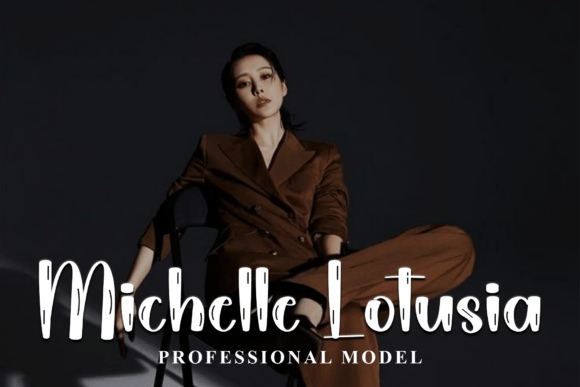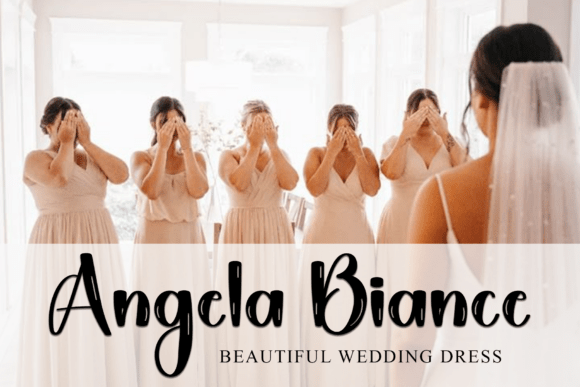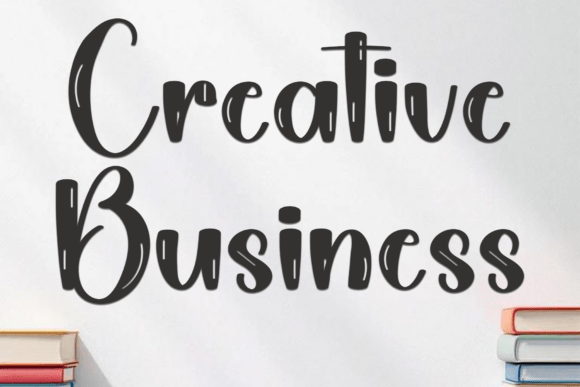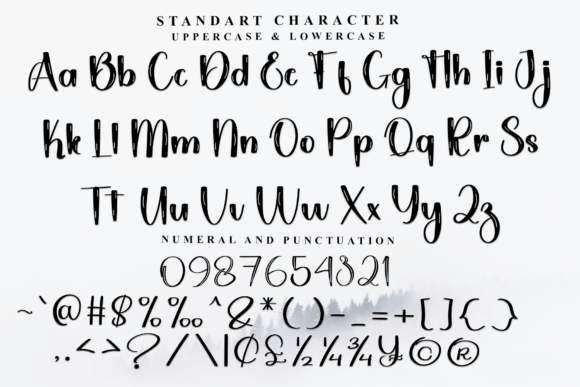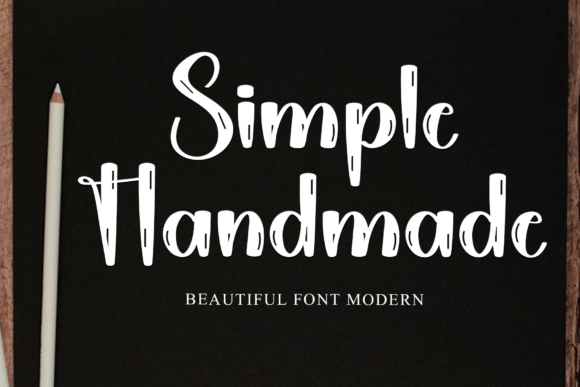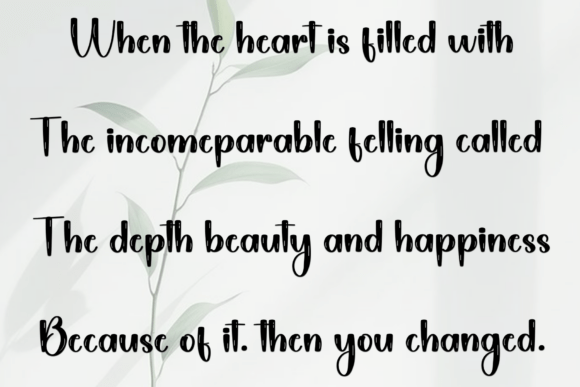
Bubble Single Font: Elevate Your Designs with a Unique and Eye-Catching Typeface
In the world of typography, fonts play a crucial role in making designs stand out. Among the numerous fonts available, Bubble Single Font has gained significant attention for its soft, unique touch and distinctive strokes. This beautiful font is perfect for designers, crafters, and creative professionals looking to add a special character to their projects. In this article, we’ll explore the features, benefits, and uses of Bubble Single Font, and why it’s an excellent choice for various design applications.
What Makes Bubble Single Font Special?
Bubble Single Font boasts a unique design that sets it apart from other fonts. Its soft, rounded edges and distinctive strokes give it a special character that makes it both meaningful and versatile. The font’s natural style makes it perfect for a wide range of design projects, from crafts and creative works to digital and print designs.
Key Features of Bubble Single Font
- Unique and Eye-Catching Design: Bubble Single Font features a distinctive design that’s sure to grab attention. Its soft, rounded edges and special strokes make it perfect for designs that require a personal touch.
- Versatile and Meaningful: The font’s unique character makes it suitable for various design projects, from creative works to digital and print designs.
- Wide Range of Characters: Bubble Single Font comes with a variety of characters, making it perfect for designs that require a range of typography options.
Benefits of Using Bubble Single Font
Using Bubble Single Font in your designs offers several benefits, including:
- Enhanced Visual Appeal: The font’s unique design and soft, rounded edges make it perfect for designs that require a visually appealing typography.
- Increased Creativity: Bubble Single Font’s distinctive strokes and special character inspire creativity, making it perfect for designers and crafters looking to add a personal touch to their projects.
- Time-Saving: The font’s versatility and wide range of characters save time and effort, as designers can use it for various design projects without needing to switch fonts.
Use Cases for Bubble Single Font
Bubble Single Font is perfect for various design projects, including:
- Design Projects: Use Bubble Single Font to add a unique touch to your designs, from brochures and posters to business cards and letterheads.
- Crafts and Creative Works: The font is perfect for crafters and creative professionals looking to add a personal touch to their projects, from handmade cards to DIY decorations.
- Digital Designs: Bubble Single Font is suitable for digital designs, including social media graphics, blog posts, and website headers.
In conclusion, Bubble Single Font is a beautiful and eye-catching font that’s perfect for designers, crafters, and creative professionals looking to add a unique touch to their projects. Its distinctive strokes, soft, rounded edges, and wide range of characters make it a versatile and meaningful font for various design applications. With its compatibility with various applications, including Windows and open-source platforms, Bubble Single Font is an excellent choice for designers and crafters looking to elevate their designs and appeal to a wide range of audiences.